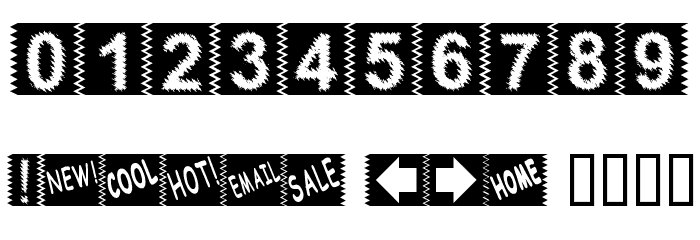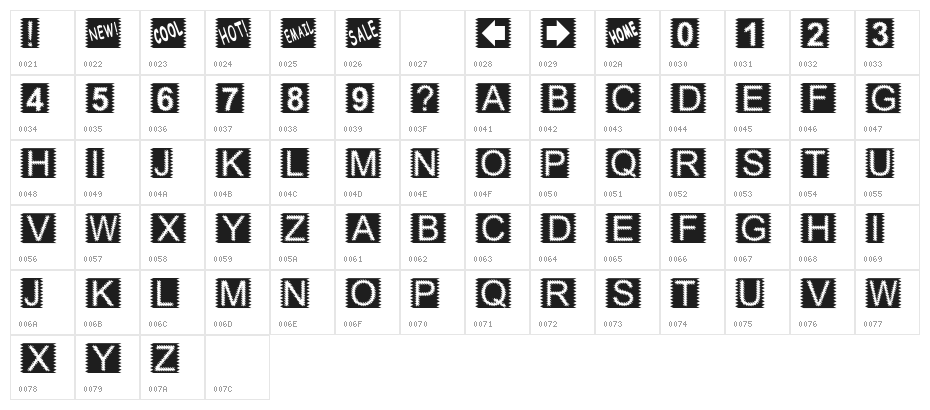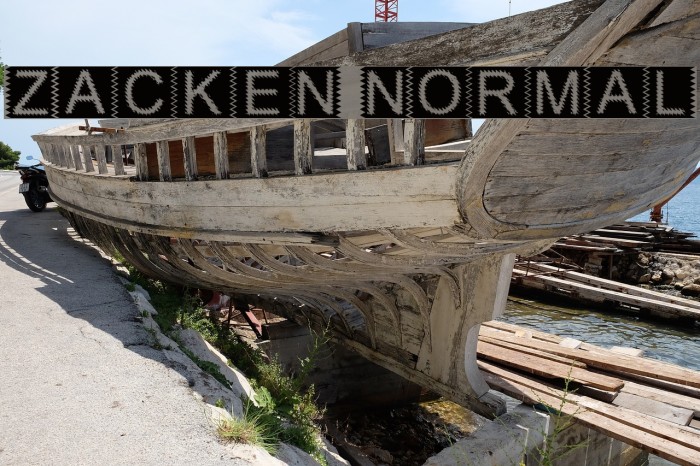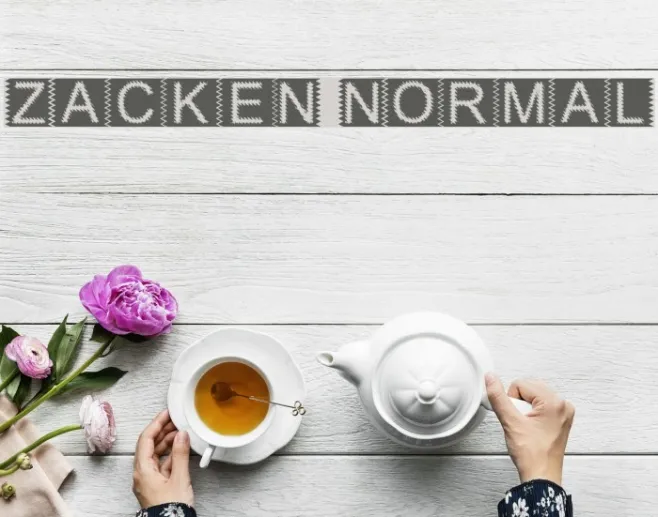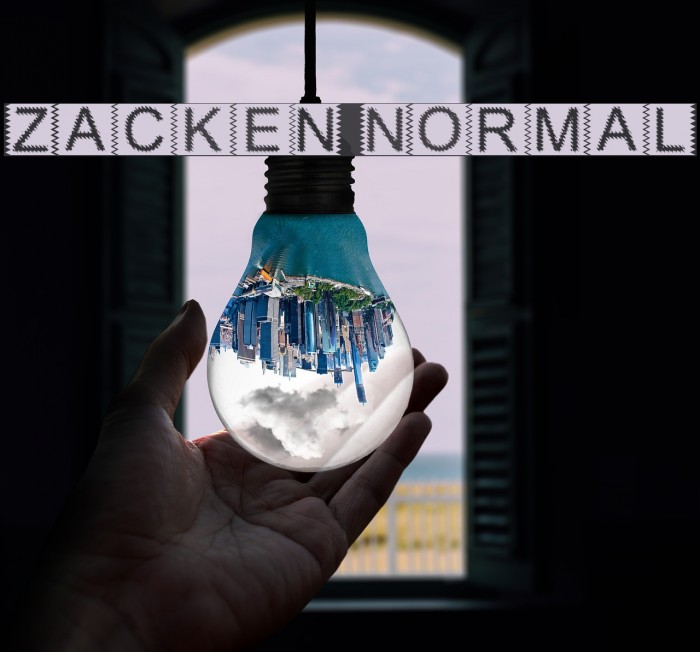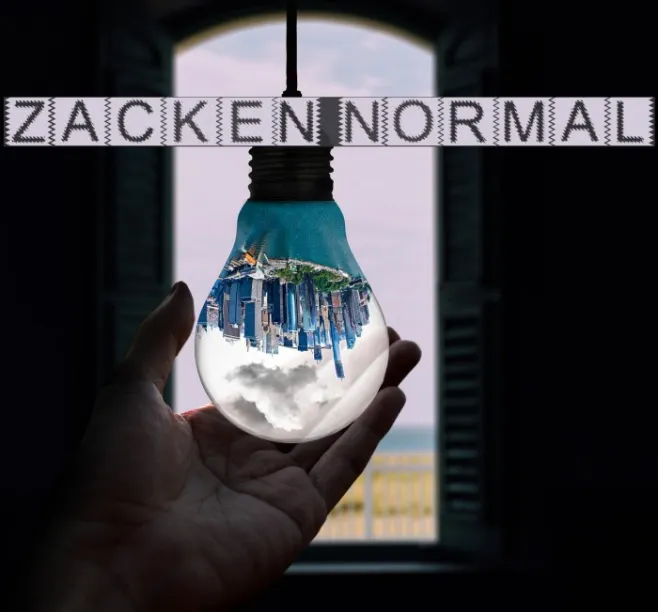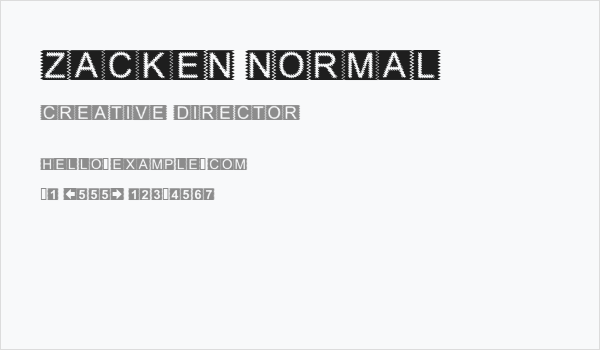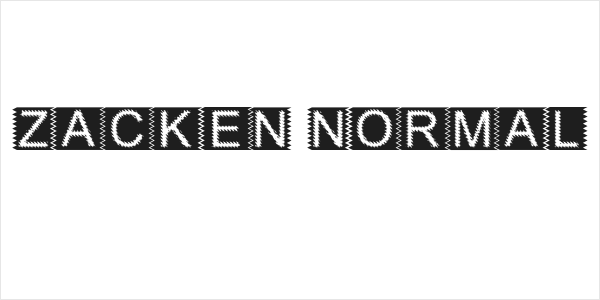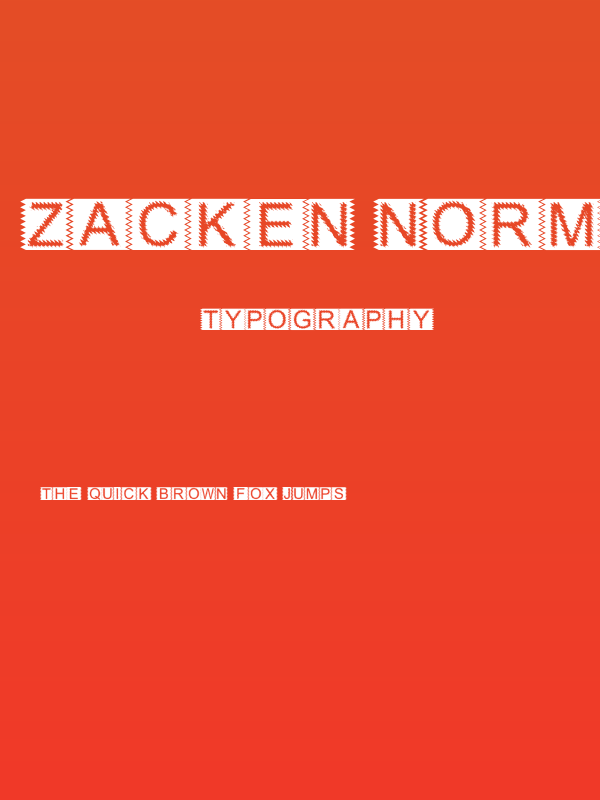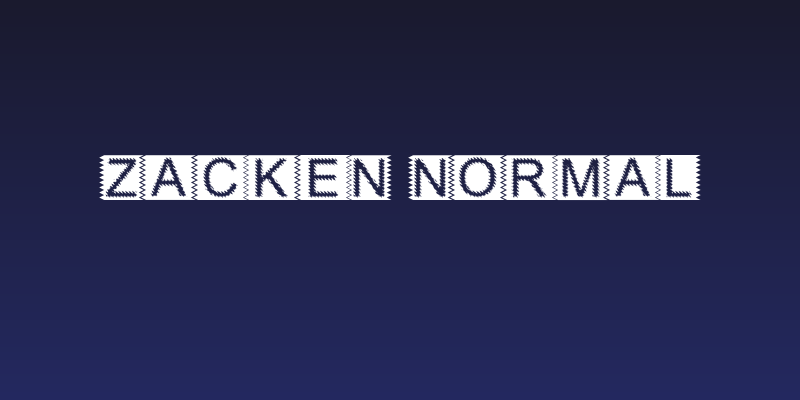
Zacken Normal Font
Zacken Normal Description
This font features a bold, zigzag pattern that runs through each character, creating a dynamic and eye-catching effect. The letters are uppercase and evenly spaced, with a consistent height and width. The design is reminiscent of a digital or pixelated style, making it ideal for modern and edgy projects. The numbers and special characters follow the same pattern, ensuring a cohesive look across all text elements. This font is perfect for projects that require a strong visual impact, such as posters, banners, and digital media.
| Proposed Projects | Ideal for posters, banners, digital media, and any project needing a strong visual impact. |